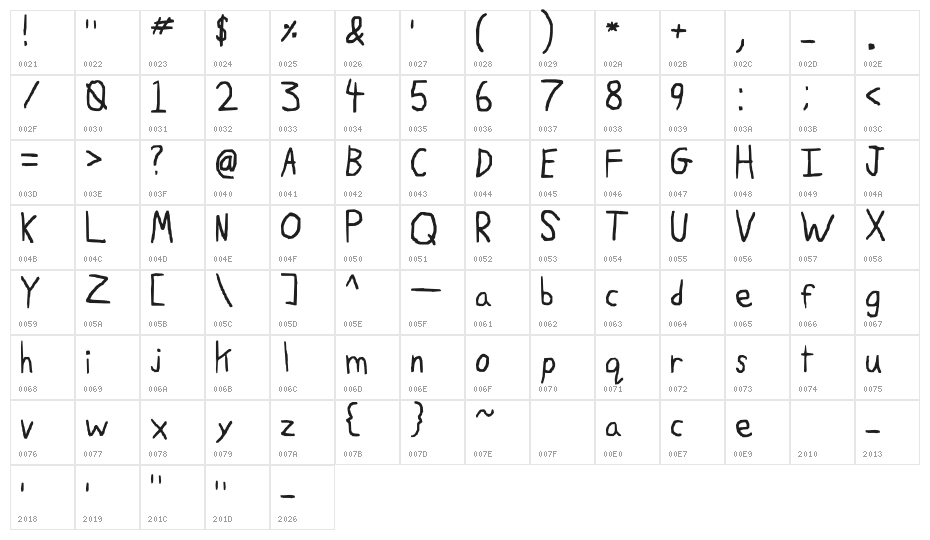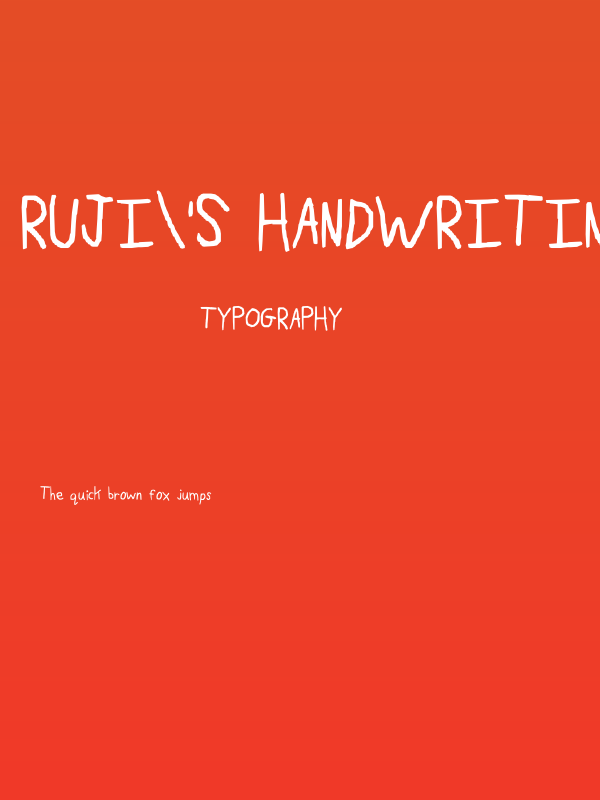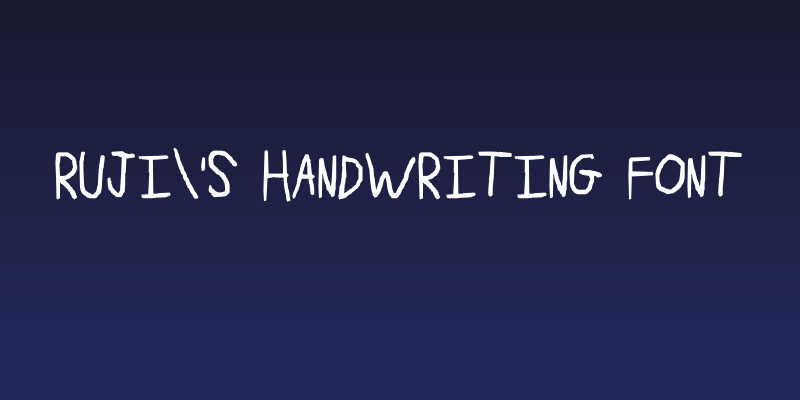
Ruji's Handwriting Font Description
This font exudes a casual, handwritten style that mimics the natural flow of penmanship. The characters are slightly uneven, adding a personal and authentic touch. Uppercase and lowercase letters are distinct, with a playful yet legible appearance. The numbers and special characters maintain the same informal style, making the font versatile for various uses. The strokes are consistent in thickness, providing a cohesive look across all characters. This font is ideal for projects that require a personal, approachable feel, such as greeting cards, personal notes, or informal branding.
| Proposed Projects | Ideal for greeting cards, personal notes, informal branding, and creative projects. |